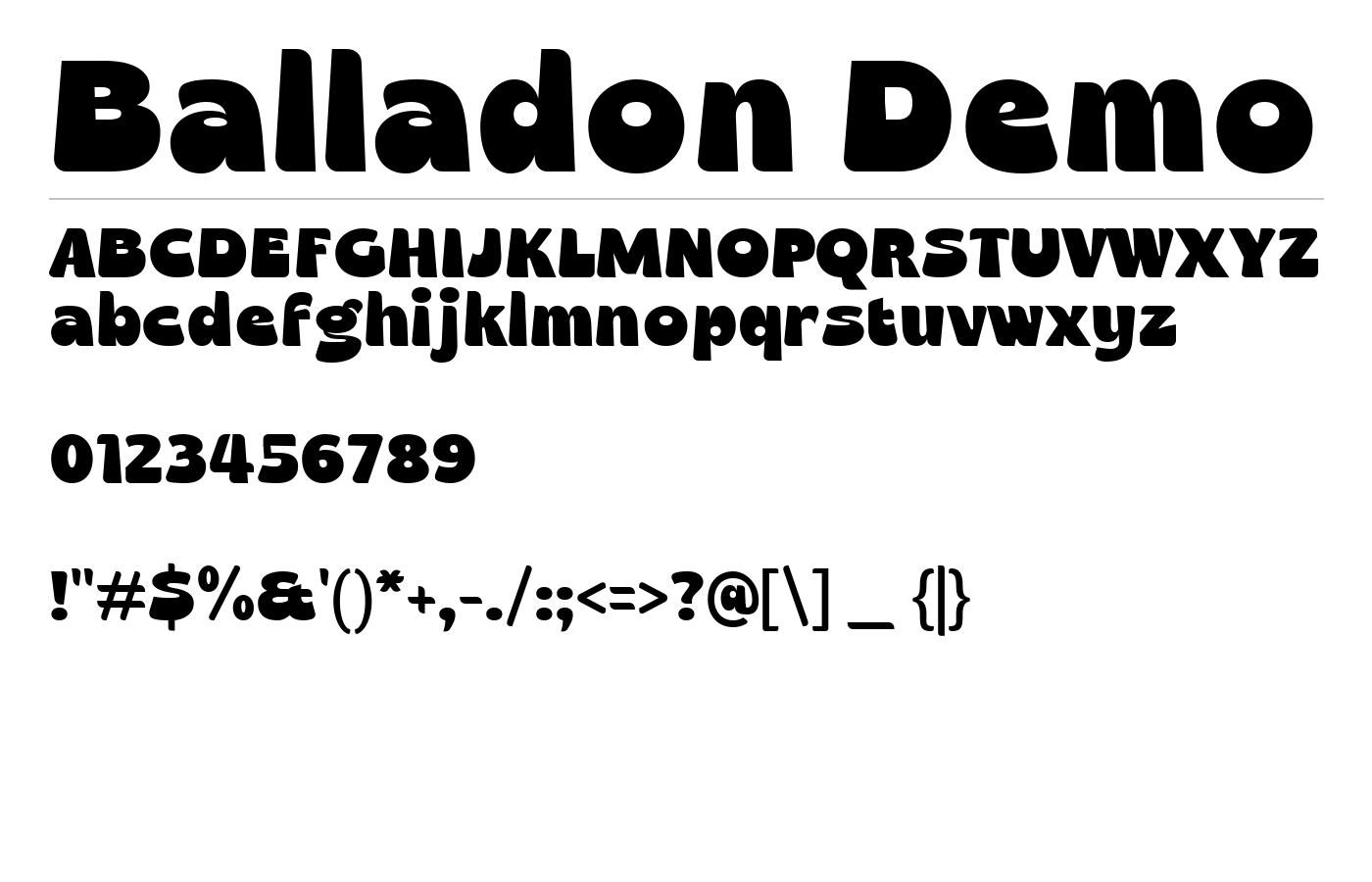
Balladon Demo is a bold, playful sans serif font with a friendly and chunky appearance. Its rounded edges and soft, irregular shapes give it a casual, approachable feel, making it ideal for fun, informal branding, children's materials, and eye-catching headlines. This font’s strong presence and unique letterforms make it perfect for projects that seek to convey warmth and creativity.
Balladon Demo Font